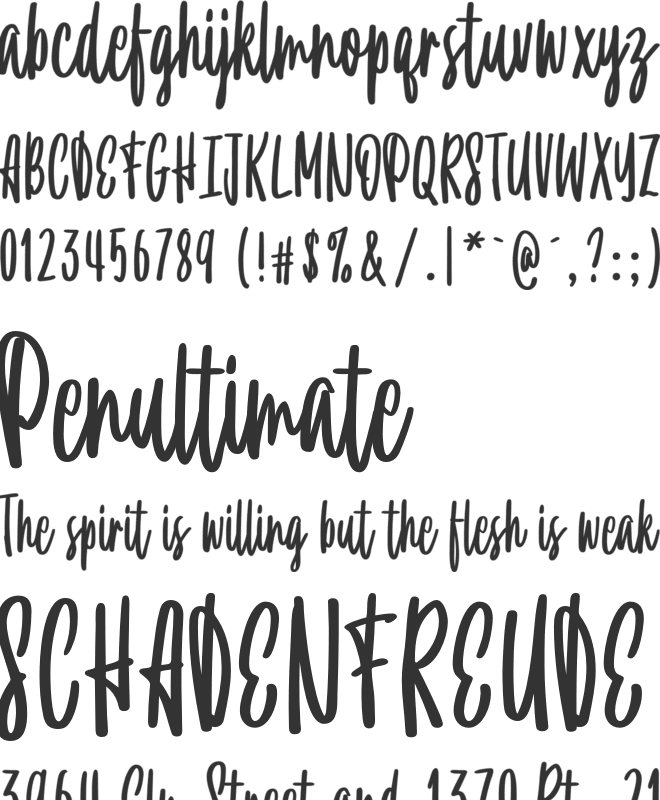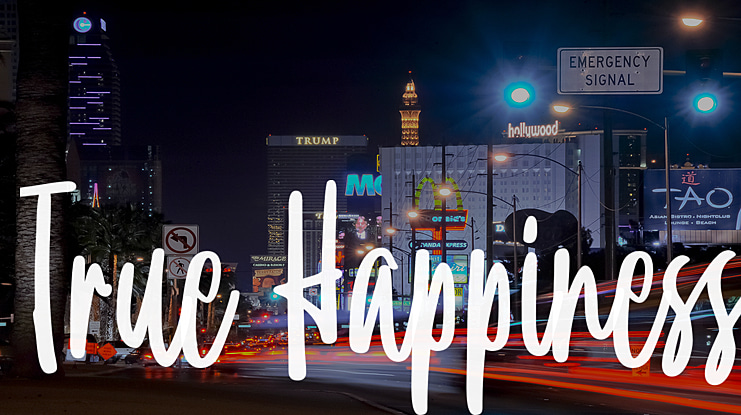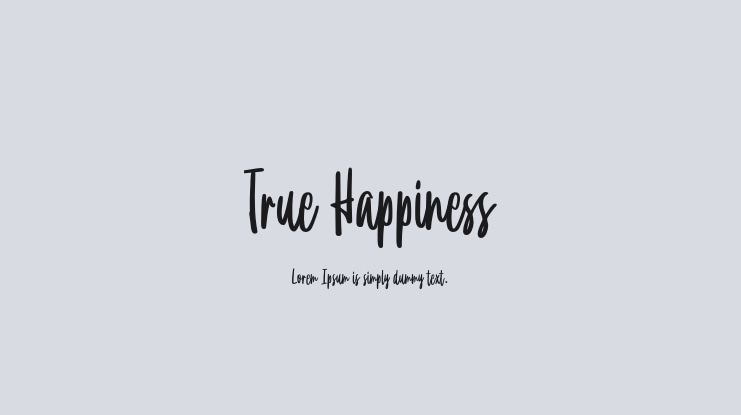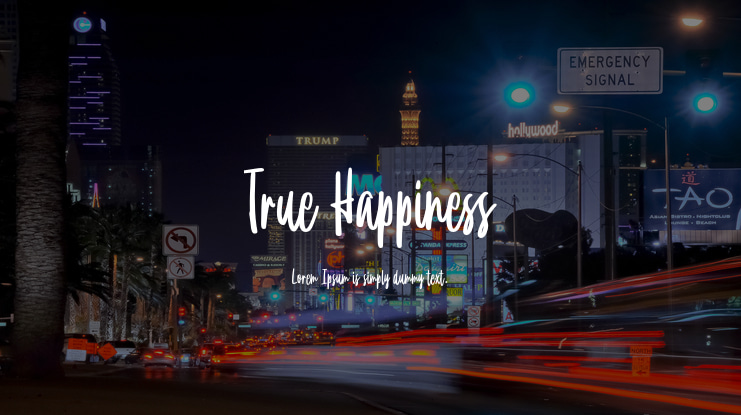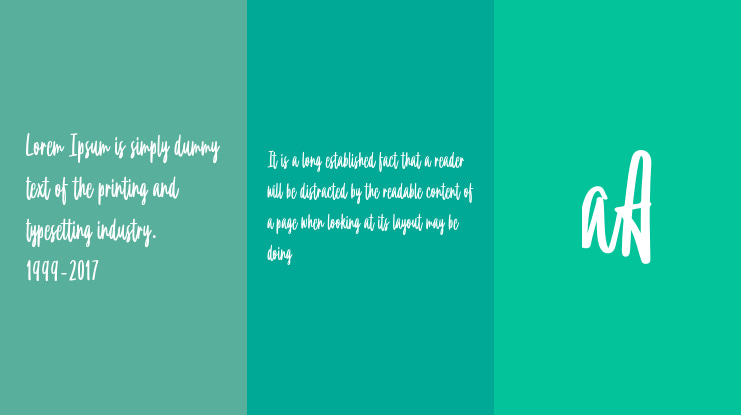
True Happiness Font
True Happiness is a condensed modern calligraphy font made from original handwriting. It feels casual and personal so it is perfect for those of you who want to make special themed typography.